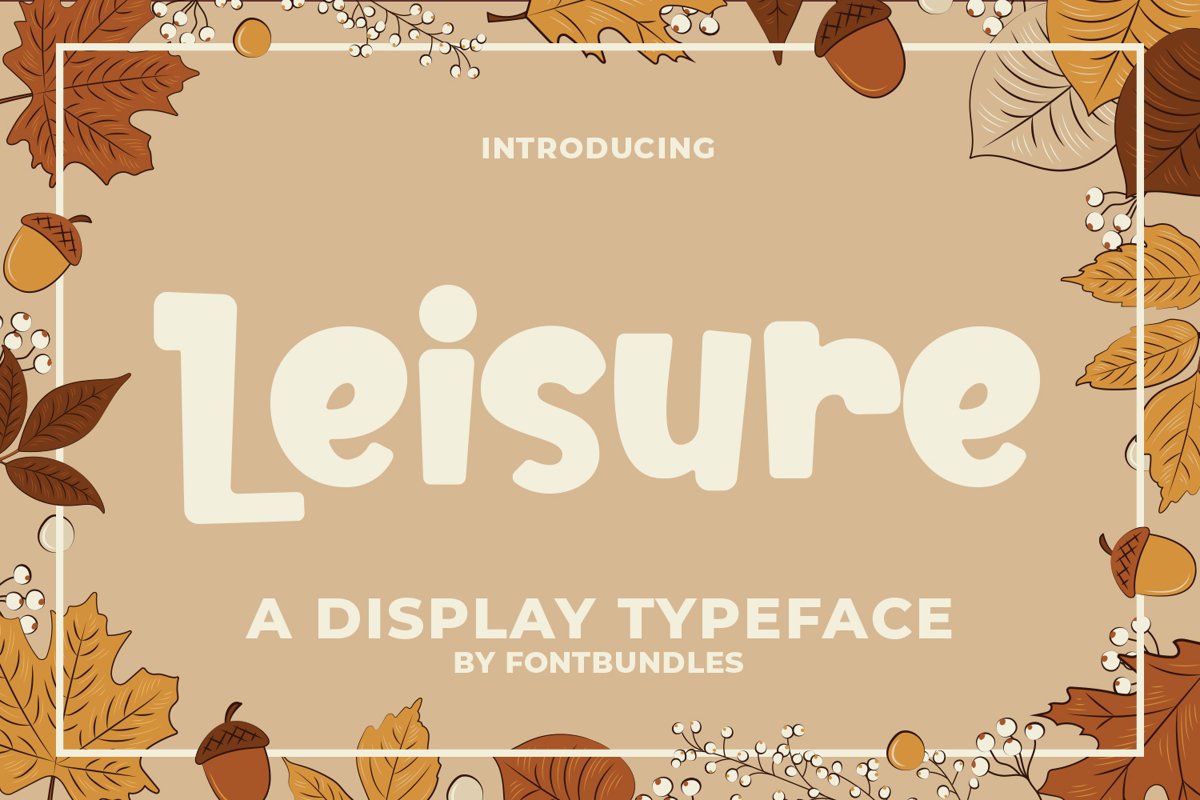
Leisure
Leisure is a display typeface. Perfect for display, quotes, book cover, magazine, kids book, education book, logo, badges, branding, merchandise, packaging and many more.